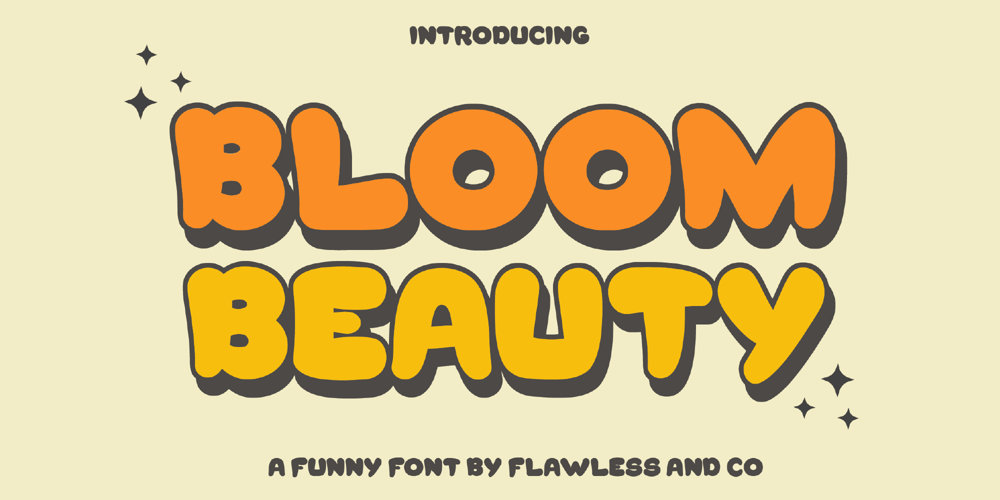
Bloom Beauty
Bloom Beauty font
Bloom Beauty Font Family was designed by Achmad Yani and published by Flawlessandco. Bloom Beauty contains 2 styles and family package options. Introducing “Bloom Beauty” – a whimsical and bold handwritten font that adds a touch of humor and playfulness to your designs. With its lively and expressive letterforms, Bloom Beauty brings a sense of fun and joy to any project. There’s some connected letters and some alternates that suitable for any graphic designs such as branding materials, t-shirt, print, business cards, logo, poster, t-shirt, photography, quotes .etcThis font support for some multilingual. Also contains uppercase A-Z and lowercase a-z, alternate character, numbers 0-9, and some punctuation.If you need help, just write me! Thanks so much for checking out my shop!